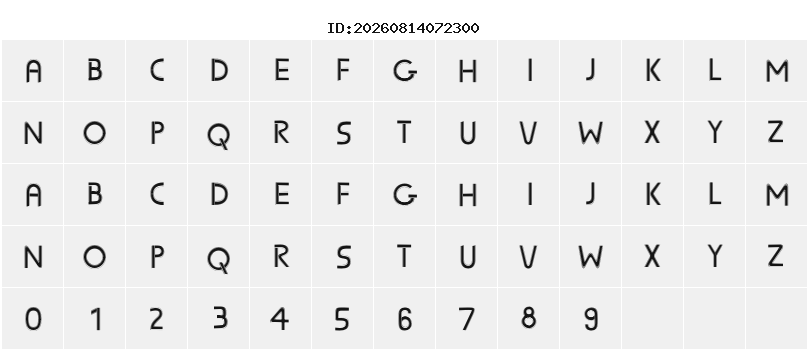
Sunscreen Pentaline Preview
• Font Name: Sunscreen Pentaline
• Designer: Simon Cozens
About Sunscreen Pentaline.otf
Sunscreen Pentaline.otf is a modern, elegant sans-serif font designed for ultimate readability and visual harmony. Perfect for branding, headlines, web design, and print materials.